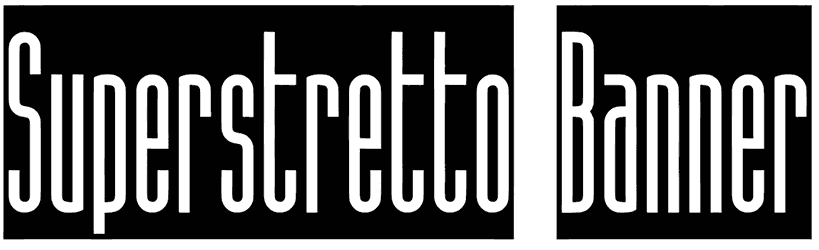
Superstretto Banner Font
If you want to implement the technology and computer codes in your writings, Superstretto Banner is the best option for you. This boxed font, where all the letters are placed inside a box, can provide you with interesting ideas when playing computer games or attending exhibitions of new equipment.
The long letters in this tall font are versatile tools that can be joined together to create effective texts on posters and billboards.
SUPERSTRETTO is a brand new Sans Serif Ultra Condensed Banner 4 font family based on a EGG – Extreme Geometric Grid (do you know? NO?… strange…) meant to be used:
for your’s branding and logo project
for creating a innovative banner
for magazine headline
or just to be able to tell everyone “I’m cool”.Currently it comes in 4 individual styles:
Superstretto (without the banner gliph)
Soperstretto Banner (simply banner)
Superstretto Outline (outlined banner)
Superstretto Double (banner type and… outline inside… ok, it is the most complex of the family!)Each weight includes extended language support, dingbats, decorative signs and more other stuff for a total of up to 2800 gliphs and unfinished combination.
DingbatsSuperstretto is incredibly useful on most of creative field like magazine, poster, book, composition and it’s a great ingredient to have in every kitchen!